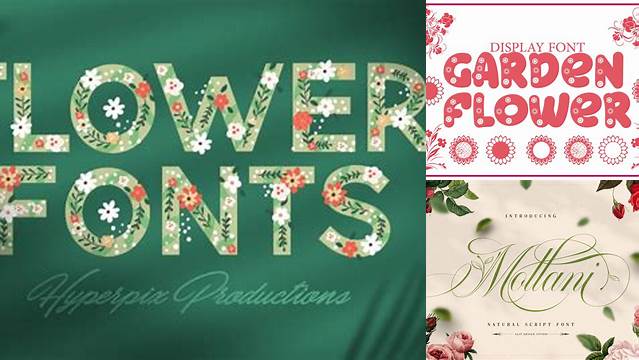
Free English Flower Fonts Download For PC
Hey guys! Are you looking to add a touch of floral elegance to your designs? Look no further! Finding the perfect english flower font can transform your projects, whether you're designing invitations, creating digital art, or just want to spice up your documents. In this article, we'll explore where to find these beautiful fonts for free download on your PC, and how to make the most of them. Let's dive in!
Elegant Floral Fonts for PC
When it comes to english flower font, elegance is key. These fonts often feature delicate floral elements intertwined with classic letterforms, creating a sophisticated and refined look. Perfect for wedding invitations, high-end branding, or any project that needs a touch of grace. You can find many of these fonts on sites like Dafont, FontSpace, and Google Fonts. Just be sure to check the licensing terms to ensure they're free for commercial use if you plan to use them for business projects. Also, remember to look for fonts that have good readability. A beautiful font is useless if nobody can read the words.
Decorative Flower Letter Fonts
If you're aiming for something more playful and eye-catching, decorative flower letter fonts are the way to go. These fonts incorporate floral designs more prominently, sometimes using flowers to form the letters themselves. They're fantastic for posters, greeting cards, and social media graphics. Explore sites like Creative Fabrica and FontBundles for unique options. Again, always verify the licensing details to avoid any copyright issues down the road. When choosing fonts, think about your audience. Who are you trying to reach, and what kind of message do you want to send?
Vintage Flower Fonts Download
For a touch of nostalgia, vintage flower fonts bring a charming, old-world feel to your designs. These fonts often mimic the styles of antique botanical illustrations and classic typography. Ideal for historical projects, vintage-themed designs, or adding character to any modern work. Websites like MyFonts and Adobe Fonts offer a variety of vintage options, though some might require a subscription. You can also find free alternatives on the previously mentioned free font sites. Remember, good design tells a story. What story do you want your font to tell?
Download Cute Flower Fonts for Free
Need something sweet and adorable? Cute flower fonts are perfect for children's books, baby showers, and anything that needs a touch of whimsy. These fonts often feature rounded edges, playful floral accents, and bright colors. You can find a plethora of options on sites like 1001 Free Fonts and Font Squirrel. Be sure to preview the fonts before downloading to ensure they match your project's aesthetic. Don’t be afraid to experiment and have fun with different fonts!
Unique Flower Fonts for PC
Stand out from the crowd with unique flower fonts that offer something different. These fonts might feature unconventional floral arrangements, abstract designs, or unexpected color combinations. They're great for branding, artistic projects, and anything that needs a distinctive look. Explore independent font designers on platforms like Behance and Dribbble for one-of-a-kind options. Keep an open mind and be willing to try something new.
Flower Fonts for Photoshop
For graphic designers, english flower font can be a fantastic addition to your creative toolkit. In Photoshop, once the font is installed, it will appear in the font selection dropdown in the text tool options. You can adjust the size, color, and other properties of the text to perfectly match your design. Flower fonts can be particularly effective for adding decorative elements to posters, social media graphics, and branding materials. Just remember to consider the overall composition of your design and how the font interacts with other visual elements.
Flower Fonts for Cricut
Crafters, rejoice! You can also use english flower font with your Cricut machine to create stunning personalized projects. After installing the font on your PC, it should be accessible in the Cricut Design Space software. You can then use the font to create custom text designs for vinyl decals, paper crafts, and more. Be sure to test cut your font on a small piece of material first to ensure it cuts cleanly. Intricate flower fonts may require more precise cutting settings.